Web Font Design Technique 01: “Typesetting with Narrowed Spacing Between Characters for Headings and Leads”
When the space between characters stands out due to large character size, such as in headings, leads, etc., or visual coherence is desired for sentences, typesetting with narrowed spacing between characters enables the users to show text more beautifully.
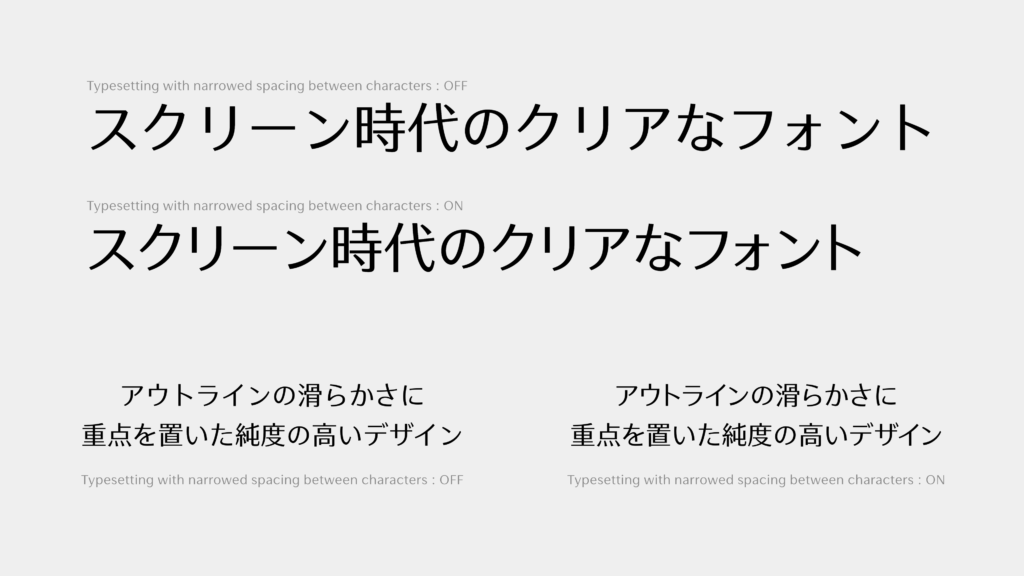
Not only the shape of characters, but also information on various functions related to character typesetting is included in OpenType fonts.
Of these, typesetting with narrowed spacing between characters is also possible in Web font by utilizing the OpenType functions palt and kern (vpal and vkrn in the case of vertical typesetting).
palt / vpal is a (proportional) function to set the character width of full-width glyph per character appropriately.
Nothing is applied in the top, and palt is applied in the bottom.
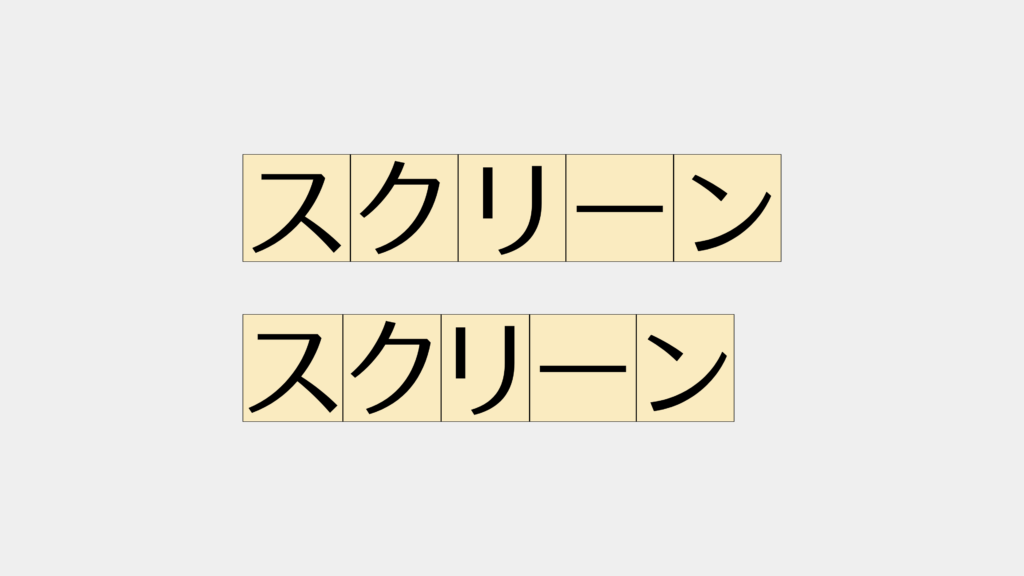
kern / vkrn is a (kerning) function to adjust the glyph position so as to make the spacing between glyphs even.
Only palt is applied in the blue characters in the top, both palt and kern are applied in the red characters in the bottom, and both of them are overlapped in the middle. You can see that the position is adjusted by kern.
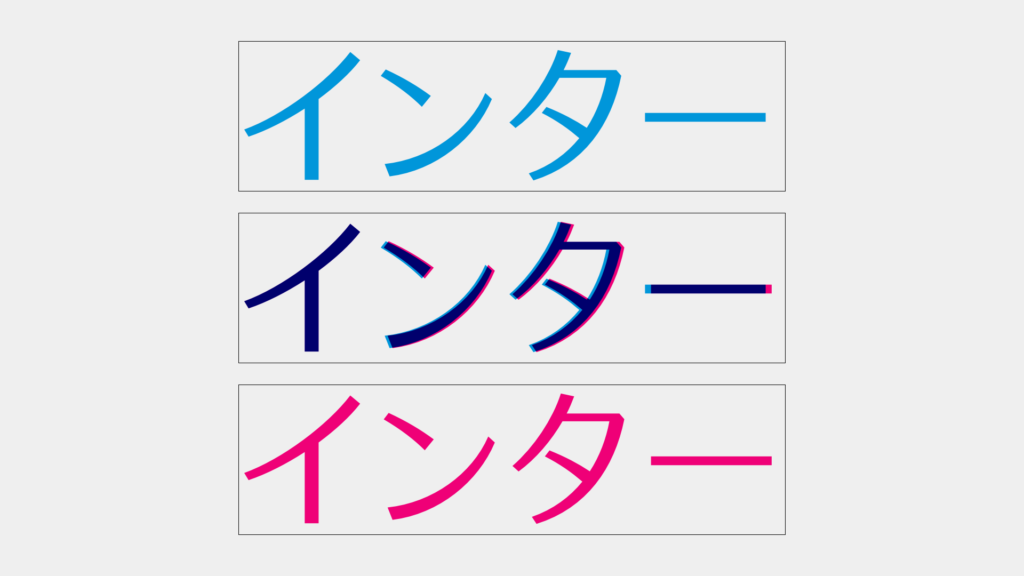
• In the major browsers, kern is applied by default according to the auto value in the font-kerning property. However, the kern / vkrn information in Japanese OpenType fonts is set on the assumption that palt / vpal is already applied. Note that it is necessary to set two functions together.
To utilize these OpenType functions in Web font, the font-feature-settings property is utilized.
In the case of typesetting with narrowed spacing between characters in horizontal typesetting:
font-feature-settings: "palt", "kern";
In the case of typesetting with narrowed spacing between characters in vertical typesetting:
font-feature-settings: "vpal", "vkrn";
When the above is specified, typesetting with narrowed spacing between characters is achieved.
By the way, more even spacing can be achieved at the time of typesetting with space between characters in letter-spacing by utilizing these functions.
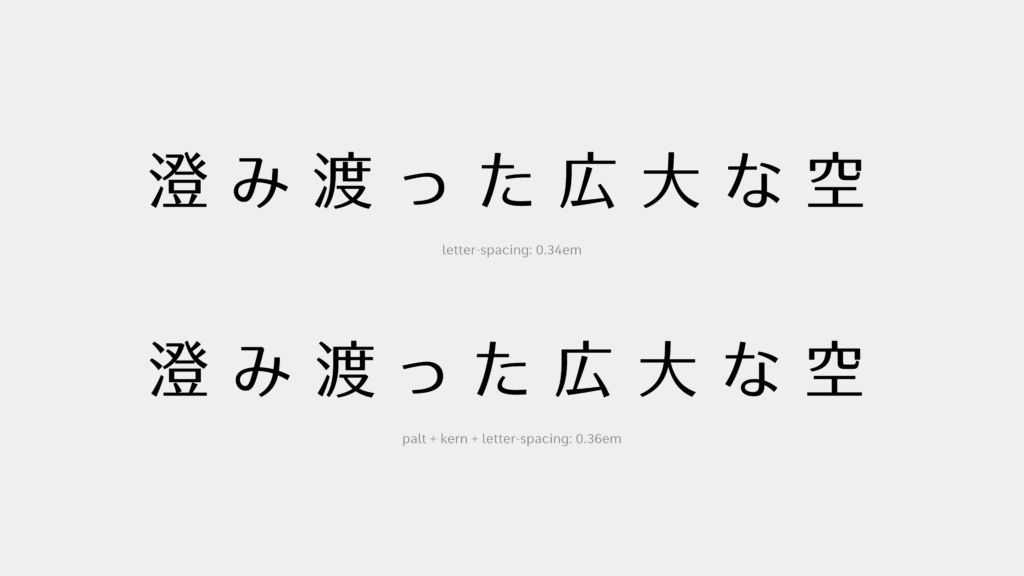
Although palt and kern are convenient functions, the rhythm of characters becomes uneven, causing difficulty in reading when applied to longer sentences. Therefore, it is not recommended to apply these functions to texts.
Depending on the font, these OpenType functions may not be implemented.